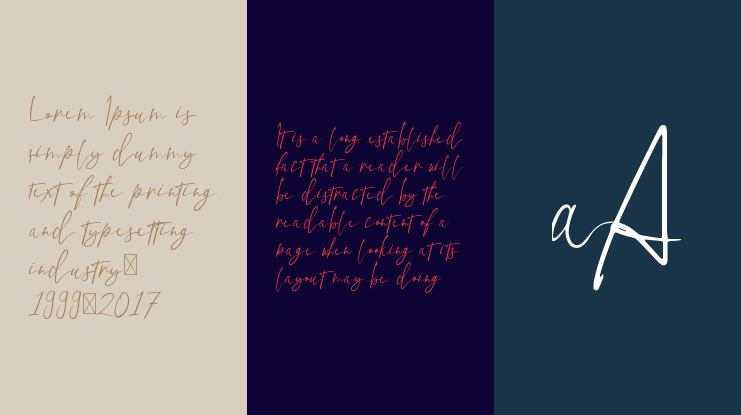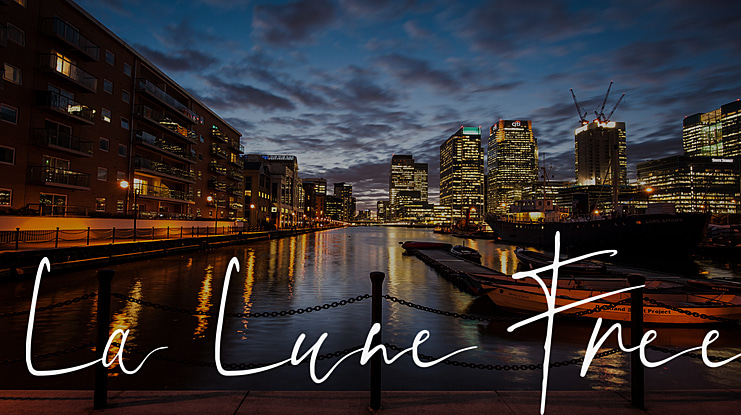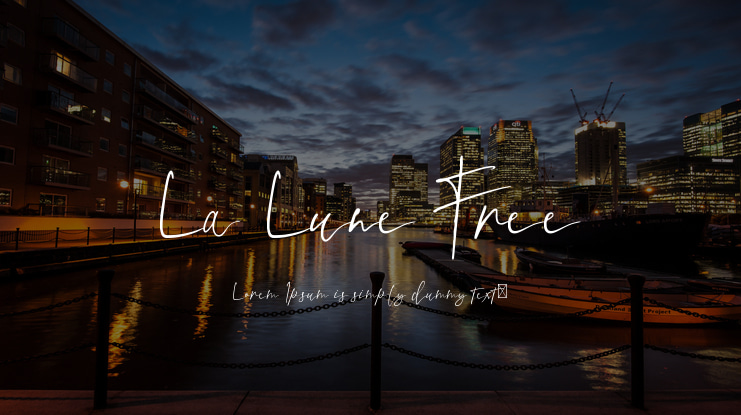
La Lune Free Font
La Lune is a beautiful and elegant font duo that will turn your next crative project into a true standout!
La Lune Free font preview